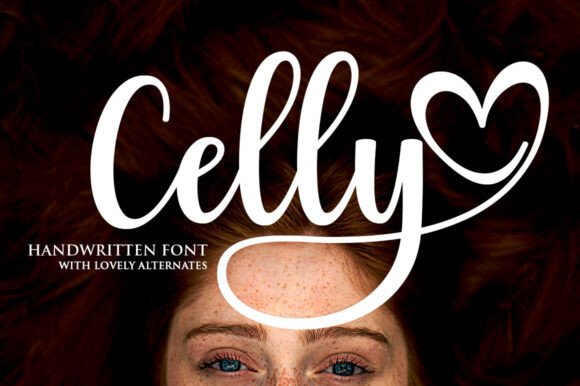
Celly Font: Elevate Your Designs with Elegant Handwriting
Introducing Celly, a beautifully serene handwriting font that adds a touch of elegance and playfulness to any design project. With its flowing cursive style and sweet, affectionate tone, Celly is the perfect tool for designers looking to create stunning visual content that stands out from the crowd.
The Charm of Celly Font
Celly is more than just a font – it’s an expression of joy and sophistication. Each stroke brings a jubilant, affectionate touch to your projects, imbuing them with an air of casual elegance and playful refinement. Whether you’re looking to enhance your brand identity, create a unique logo, or design eye-catching marketing materials, Celly is the perfect choice.
With Celly, you can add a fancy yet relaxed charm to your designs that will turn heads at every corner. Its versatility makes it suitable for a wide range of applications, from wedding invitations and greeting cards to fashion lookbooks and marketing promotions.
Key Features of Celly Font
- Elegant Handwriting Style: Celly boasts a beautiful, flowing cursive style that adds a touch of sophistication to any design.
- Versatile and Flexible: Use Celly for a wide range of design projects, from branding and logos to invitations and marketing materials.
- Playful and Refined: Celly’s unique blend of playfulness and refinement makes it perfect for designers looking to create visually appealing content.
- Casual Elegance: Add a touch of casual elegance to your designs with Celly’s effortless, handwriting style.
Perfect for a Variety of Design Projects
Celly is an incredibly versatile font that can be used for a wide range of design projects. Here are some ideas to get you started:
- Brand Identity: Use Celly to create a unique and memorable brand identity that stands out from the competition.
- Logos: Create a stunning logo that showcases your brand’s personality and style with Celly.
- Wedding Invitations: Add a touch of elegance and sophistication to your wedding invitations with Celly’s beautiful handwriting style.
- Greeting Cards: Create heartwarming greeting cards that showcase your thoughtfulness and attention to detail.
- Fashion Lookbooks: Use Celly to add a touch of glamour and sophistication to your fashion lookbooks.
- Marketing Promotions: Create eye-catching marketing materials that grab attention and drive results with Celly.
Why Choose Celly Font?
With so many fonts to choose from, why should you choose Celly? Here are just a few reasons why Celly stands out from the crowd:
- Unique Style: Celly’s elegant handwriting style is unlike any other font on the market.
- Versatility: Use Celly for a wide range of design projects, from branding and logos to invitations and marketing materials.
- Ease of Use: Celly is incredibly easy to use, making it perfect for designers of all skill levels.
- High-Quality Design: Celly is designed to the highest standards, ensuring that your designs look professional and polished.
Tips for Using Celly Font
Here are a few tips for getting the most out of Celly:
- Experiment with Different Sizes: Celly looks great in a variety of sizes, so don’t be afraid to experiment to find the perfect fit for your design.
- Pair with Other Fonts: Celly pairs well with a variety of other fonts, so try combining it with other fonts to create a unique look.
- Use for Headings and Body Text: Celly is perfect for both headings and body text, making it a great choice for a wide range of design projects.
In conclusion, Celly is a beautiful, elegant handwriting font that is perfect for designers looking to add a touch of sophistication and playfulness to their designs. With its versatility, ease of use, and high-quality design, Celly is an excellent choice for a wide range of design projects. Whether you’re looking to create a unique brand identity, design stunning marketing materials, or simply add a touch of elegance to your designs, Celly is the perfect choice.